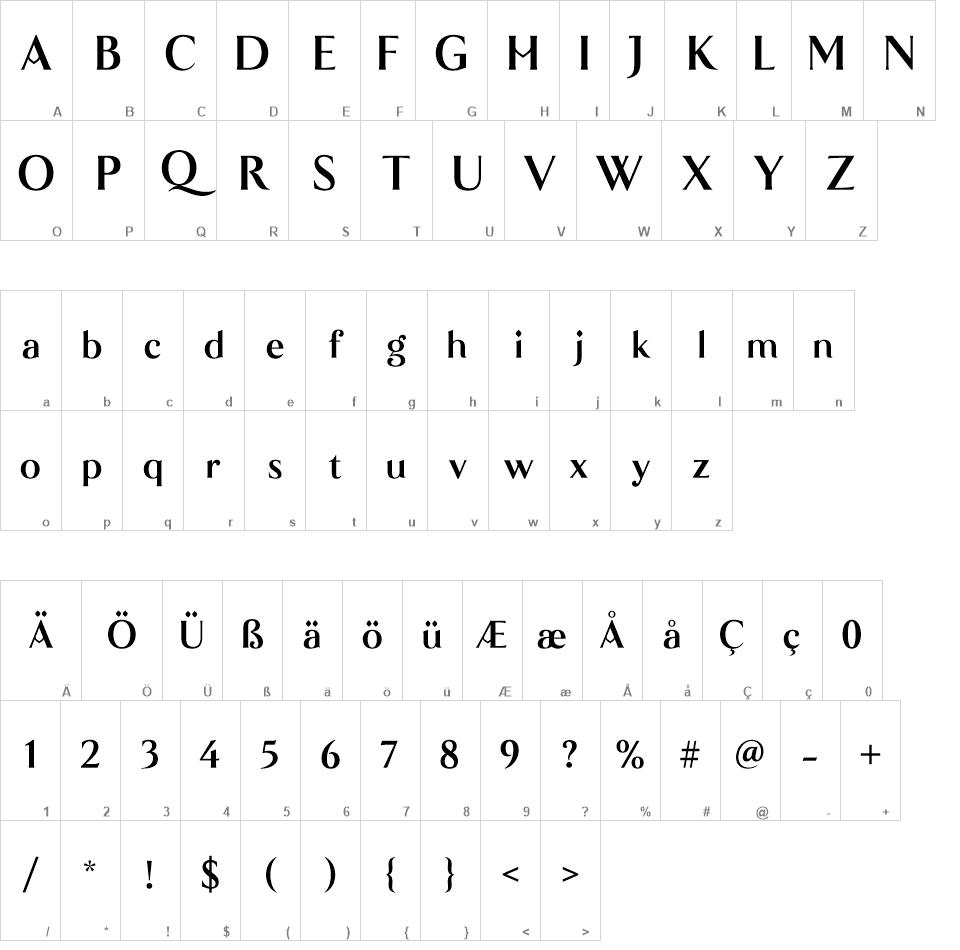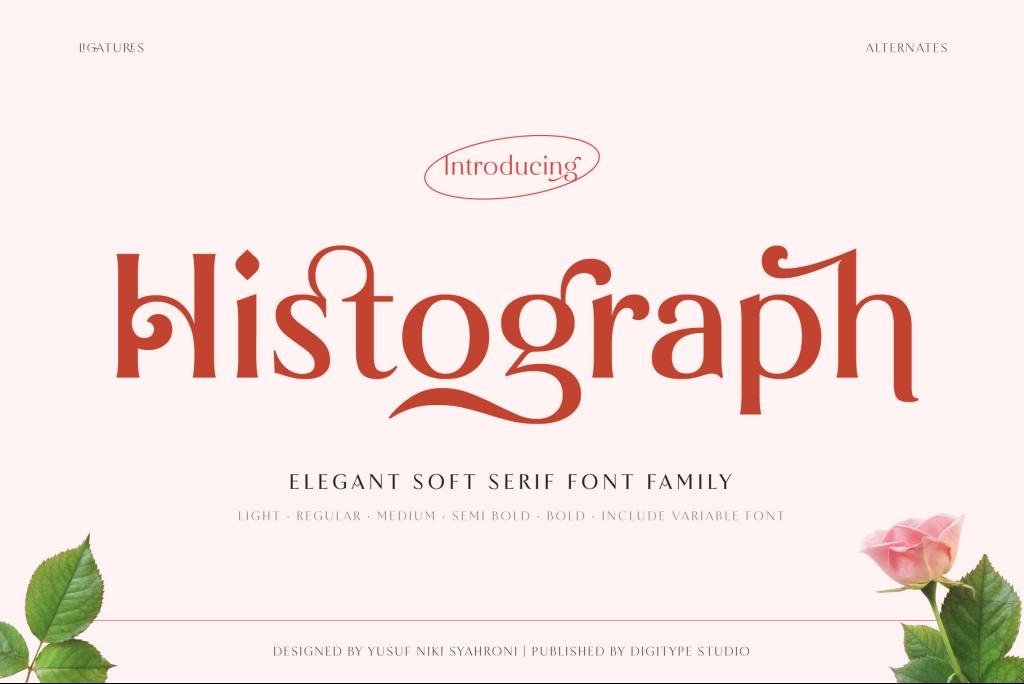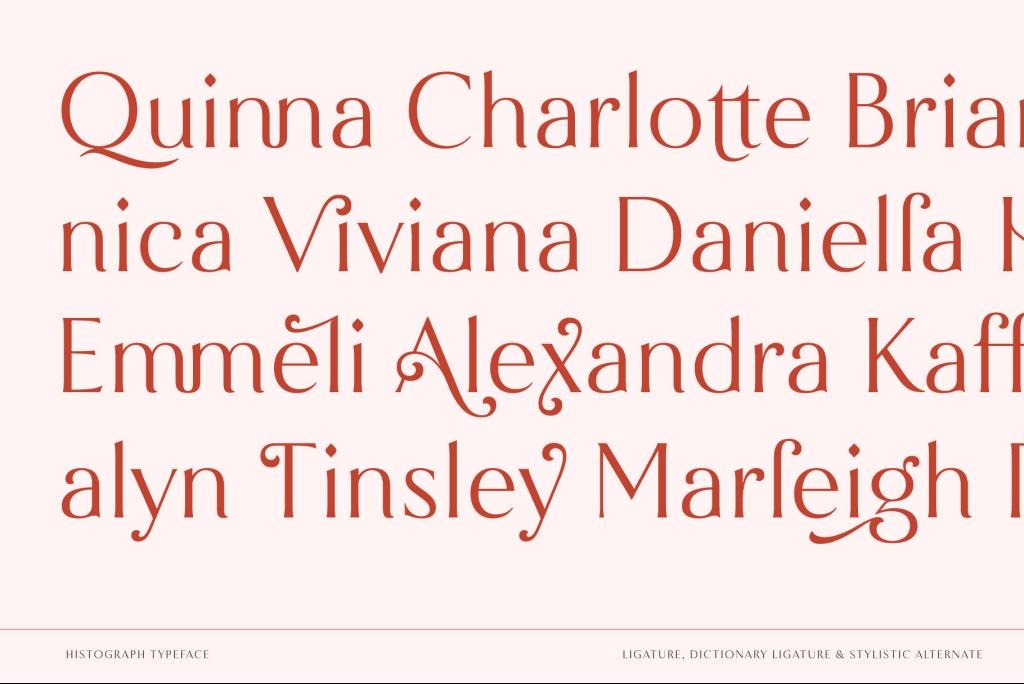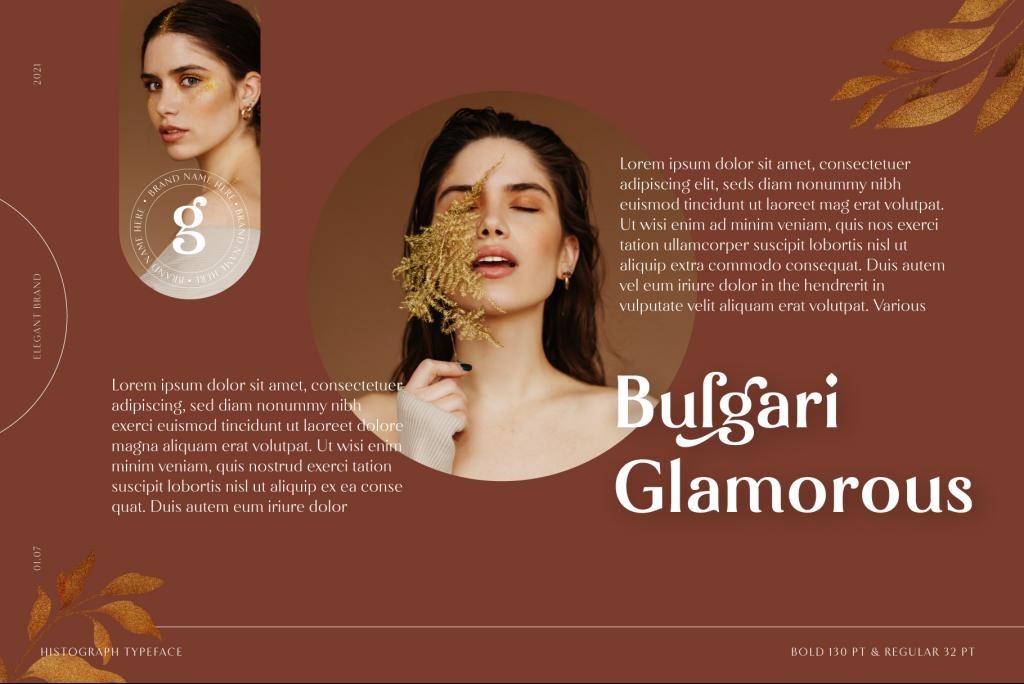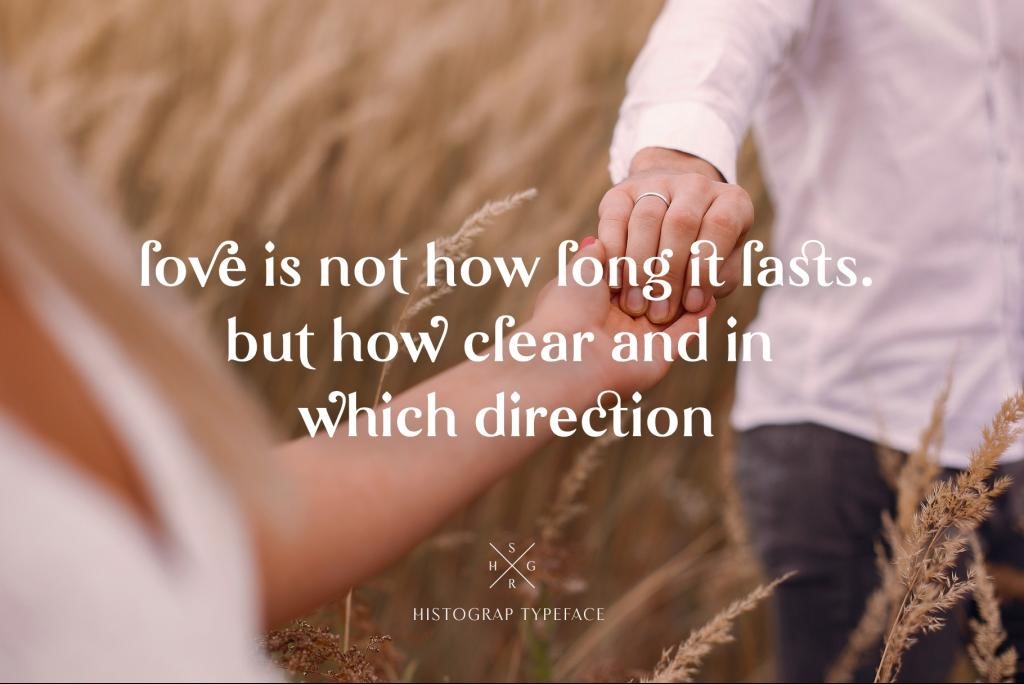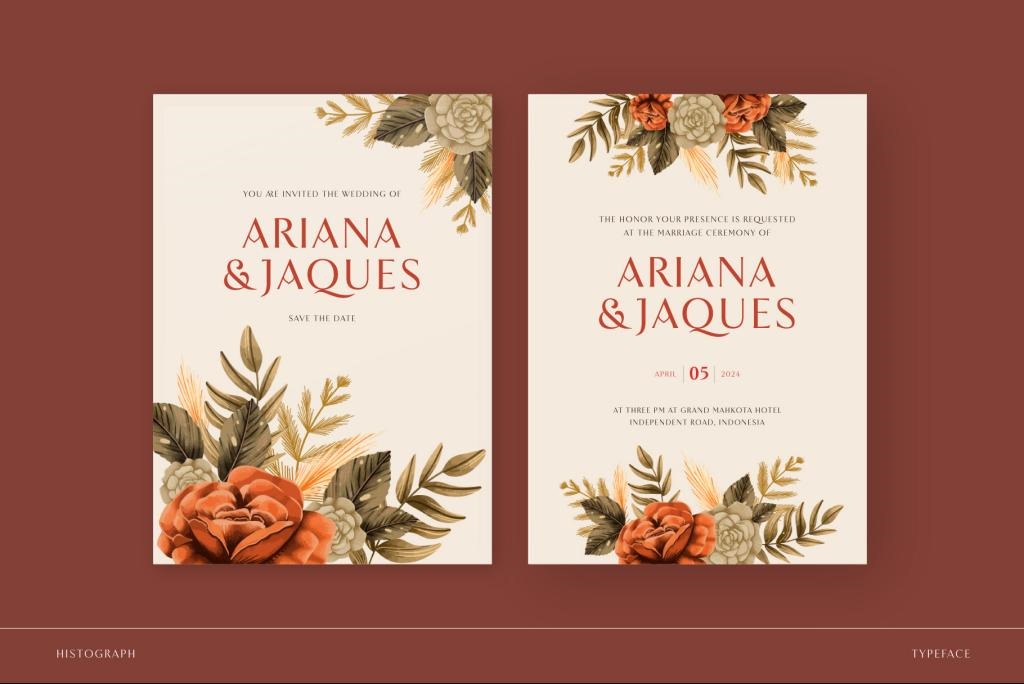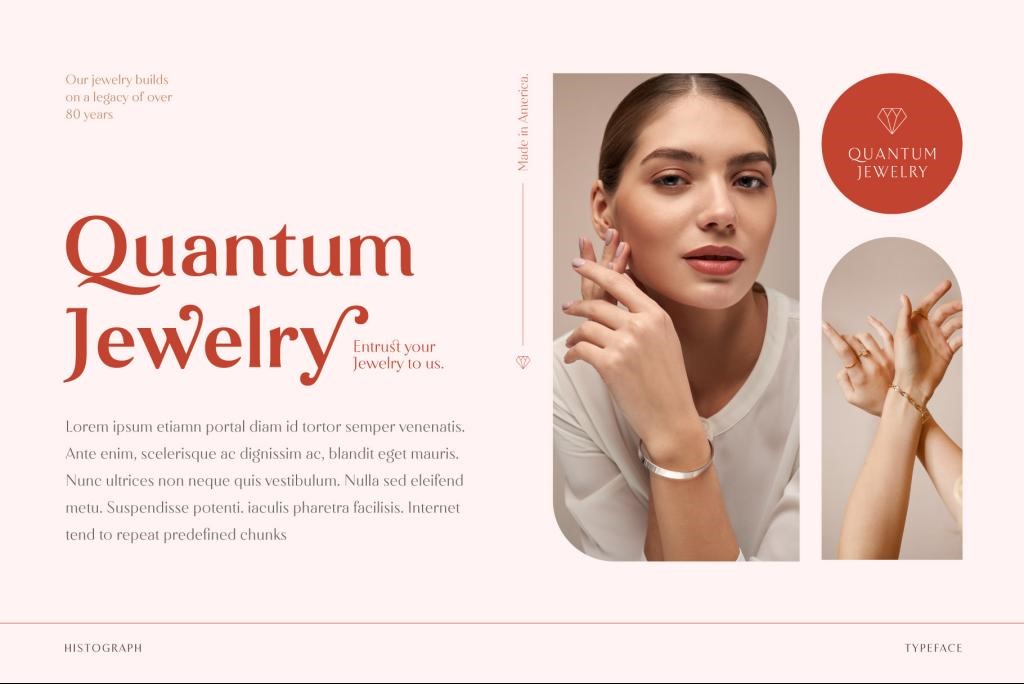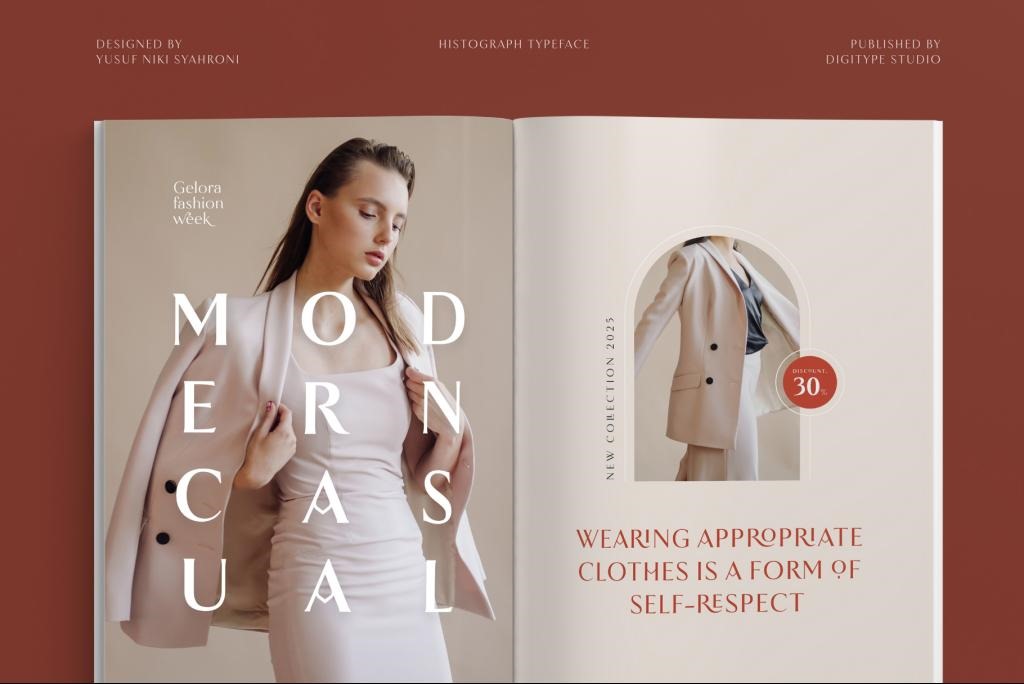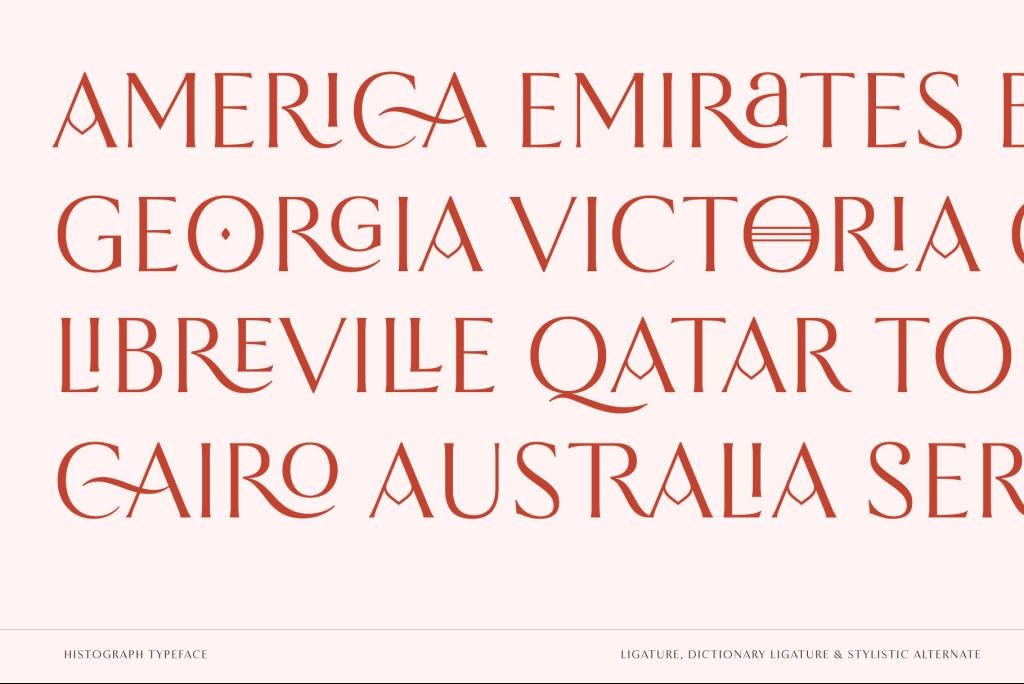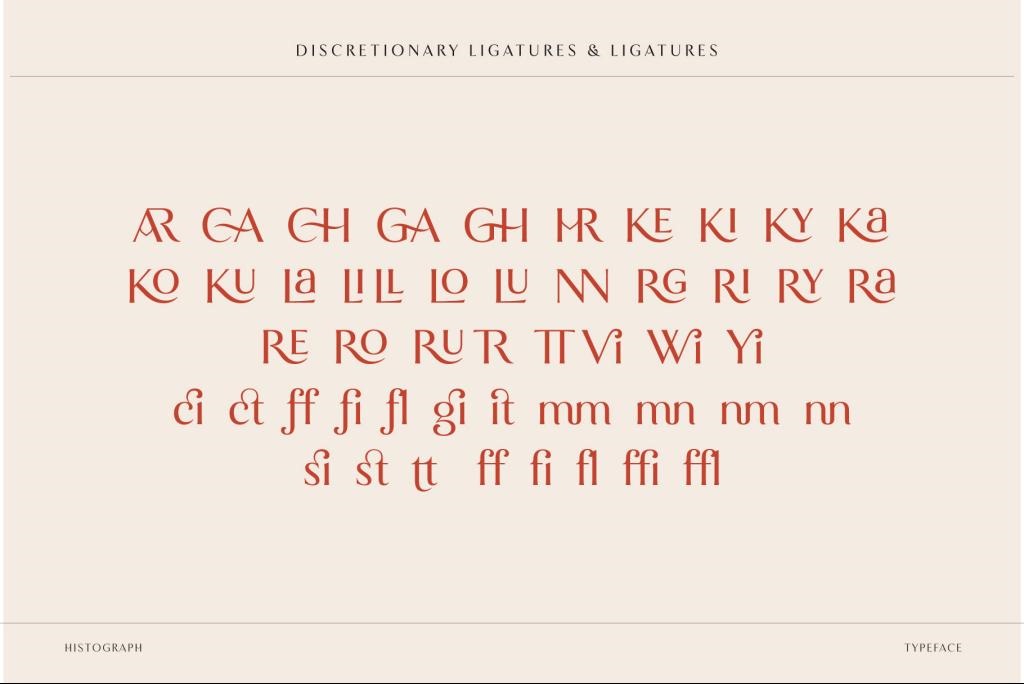
Histograph font
Histograph is an elegant and trendy serif font. It is PUA encoded which means you can access all of the glyphs and swashes with ease! Fall in love with its incredibly versatile style and use it to create spectacular designs!